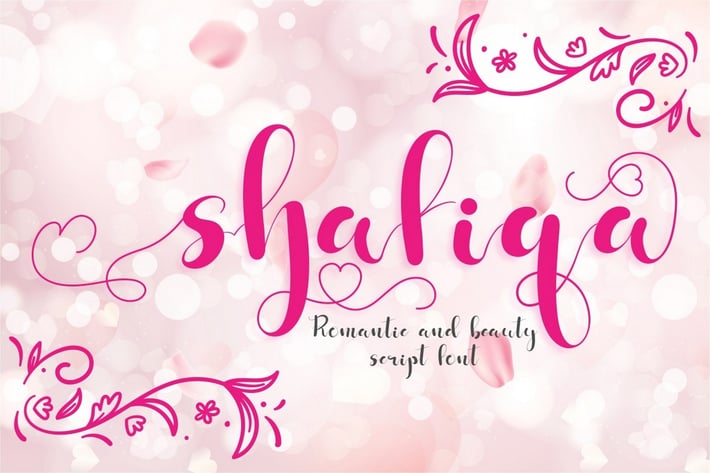
Shafiqa - Romantic Font
Shafiqa
Introducing a new romantic and a beautiful handwritting script font called "Shafiqa".
Come with open type feature with a lot of alternates, its help you to make great lettering.
Shafiqa best uses for heading,cover, poster, logos, quotes, product packaging, header, merchandise, social media & greeting cards and many more.
This font is also support multi language.
Comes with feature :
Alternate
Number, Punctuation And Symbols
Multilanguage Support.